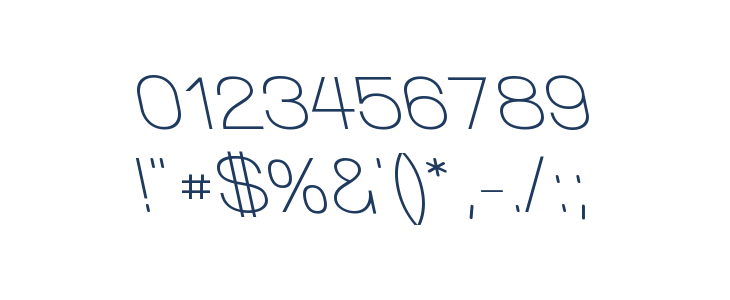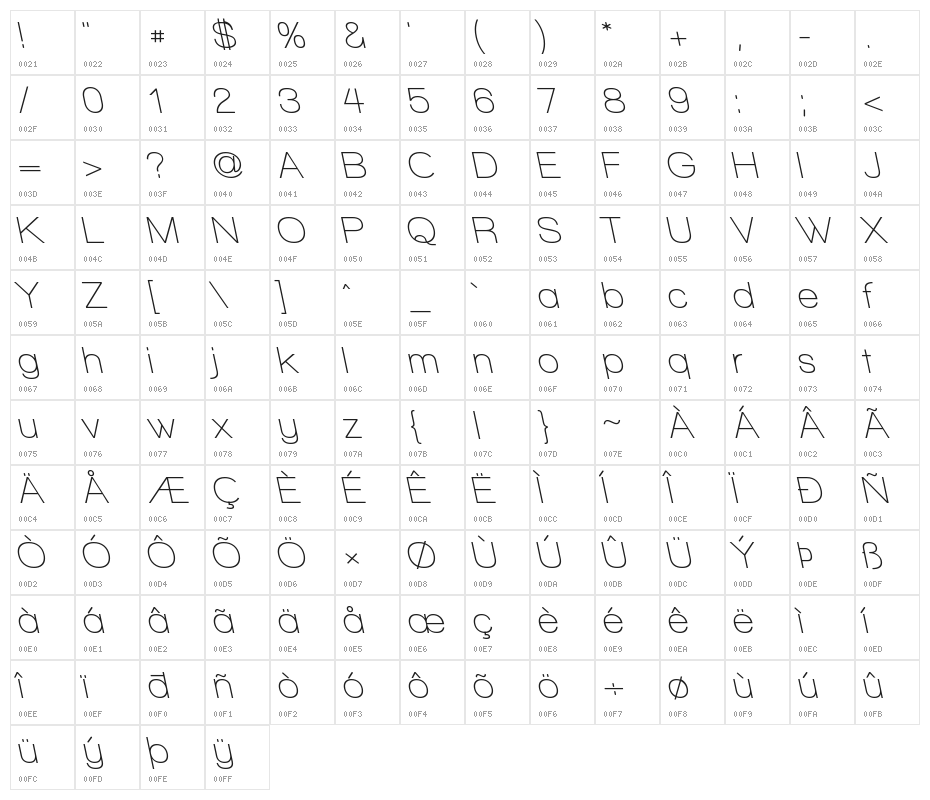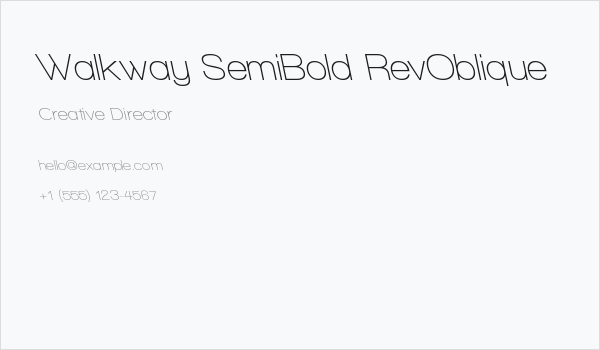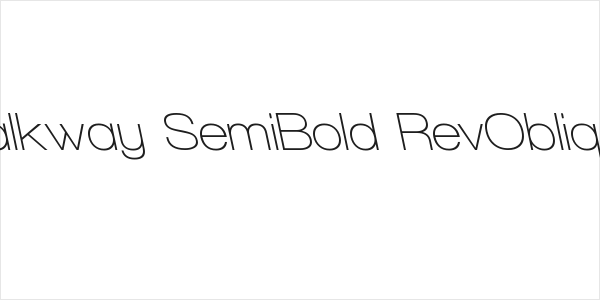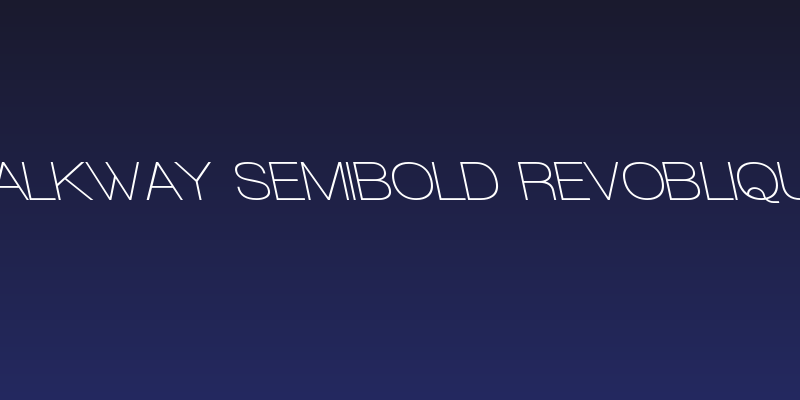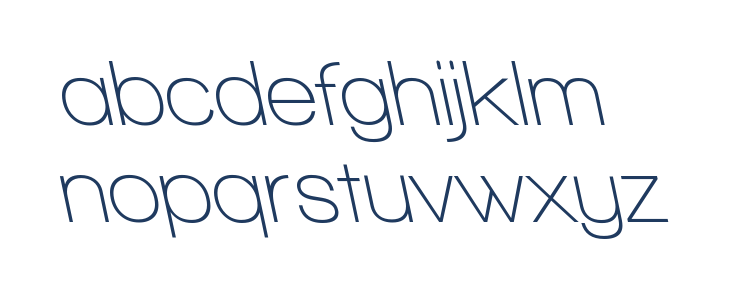
Walkway SemiBold RevOblique Font
Walkway SemiBold RevOblique Description
This font exhibits a sleek and modern aesthetic with a semi-bold weight and a reverse oblique style. The characters are clean and geometric, featuring smooth curves and straight lines that create a sense of balance and harmony. The uppercase letters are uniform in height, while the lowercase letters maintain a consistent baseline, enhancing readability. The numerals are proportionate and align well with the overall design, making them suitable for both text and numerical data. Special characters are distinct and maintain the font's cohesive style. The overall appearance is contemporary and professional, making it versatile for various design applications.
| Proposed Projects | Ideal for branding, advertising, digital interfaces, and modern print materials. |